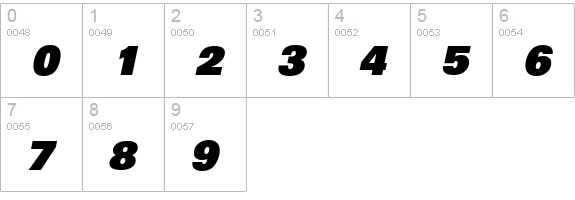
UltimateSerial-Heavy-Italic is a heavy, high-impact, italic variant in the UltimateSerial typeface family \xE2\x80\x94 well suited to high-impact headlines, posters, and display advertising.
UltimateSerial-Heavy-Italic is a striking and bold font that commands attention with its heavy weight and distinctive italic styling. Perfect for making a statement or adding a touch of drama to your designs, this font exudes power and sophistication. The sleek, modern design of UltimateSerial-Heavy-Italic makes it ideal for a variety of projects, from branding to headlines to posters. And the best part? This remarkable font is available for free download at FontsMarket.com. So go ahead and elevate your designs with UltimateSerial-Heavy-Italic today!